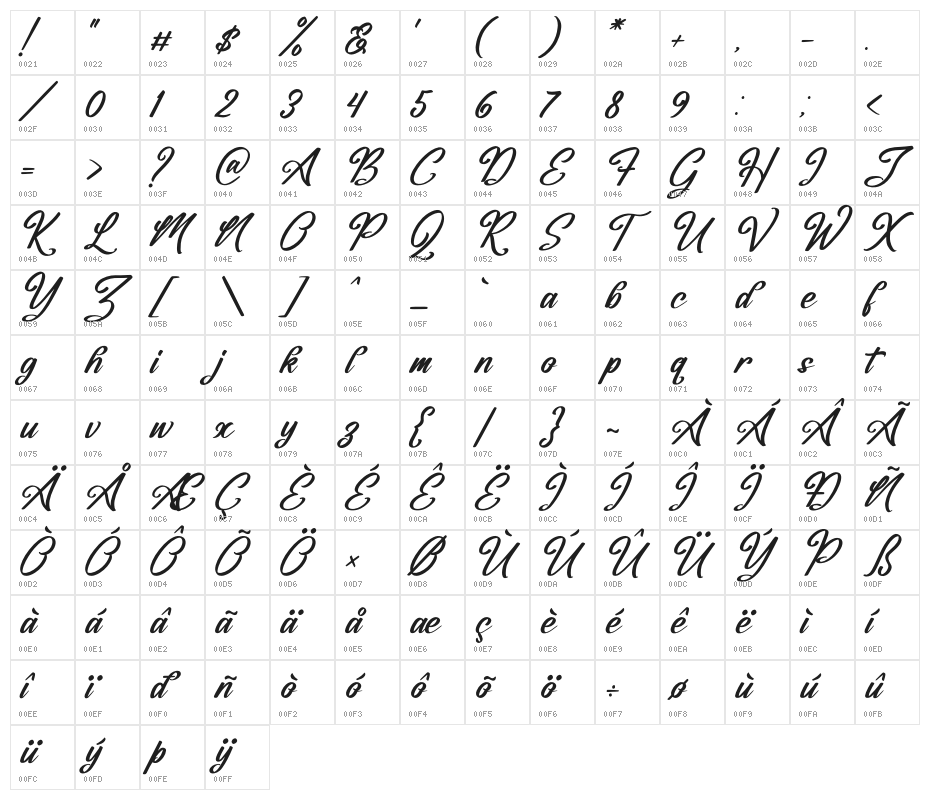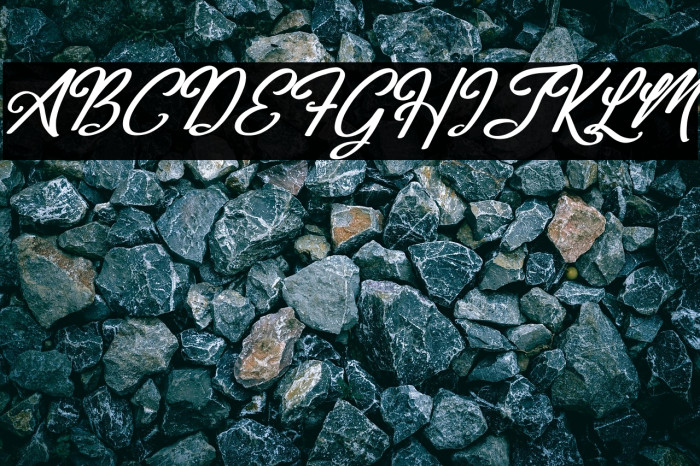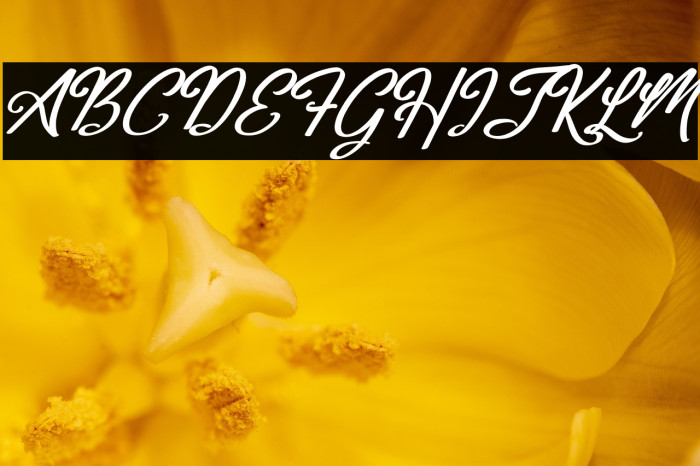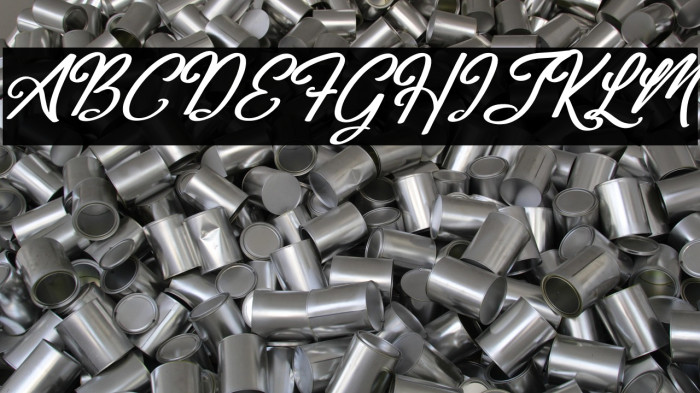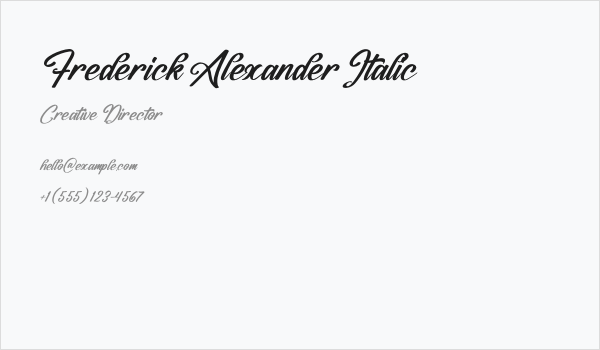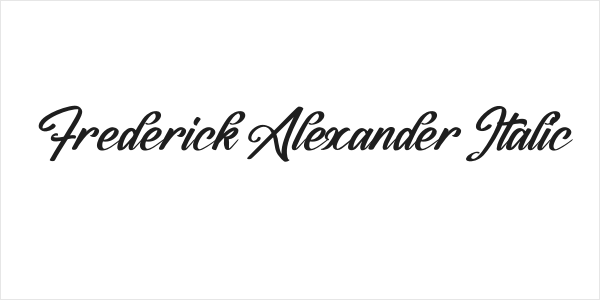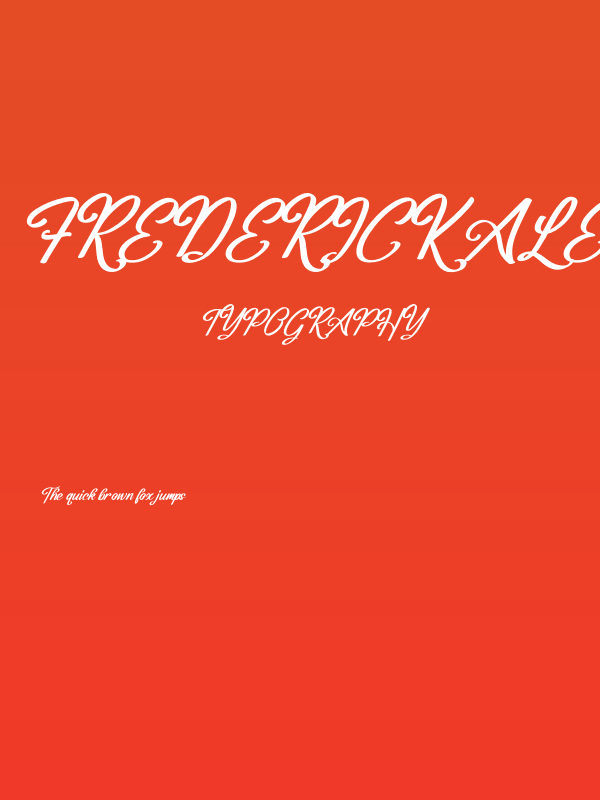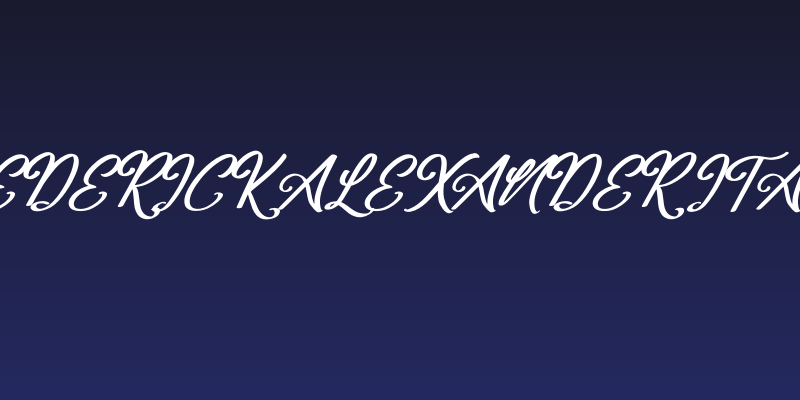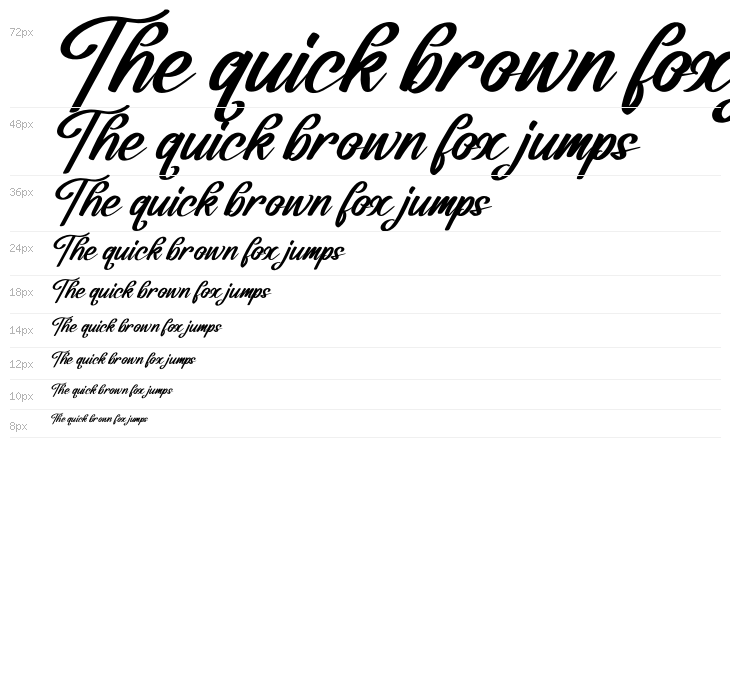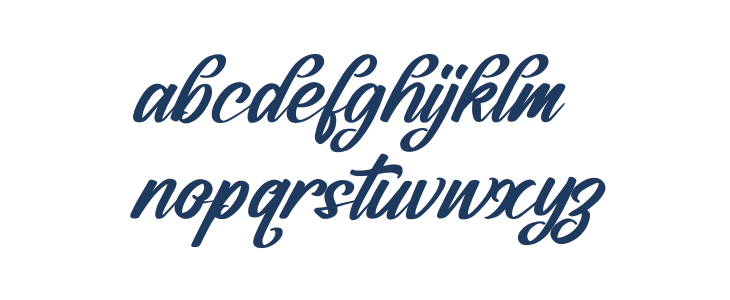
Frederick Alexander Italic Font
Frederick Alexander Italic Description
This font features a dynamic and flowing script style, characterized by its elegant and cursive letterforms. The uppercase letters exhibit a sophisticated flair with sweeping curves and loops, while the lowercase letters maintain a consistent fluidity, enhancing readability. The numerals are designed to complement the overall aesthetic, with a similar emphasis on curves and balance. Special characters are seamlessly integrated, maintaining the font's cohesive style. This typeface exudes a sense of elegance and sophistication, making it suitable for projects that require a touch of class and refinement.
| Proposed Projects | Ideal for wedding invitations, luxury branding, elegant packaging, and high-end editorial design. |